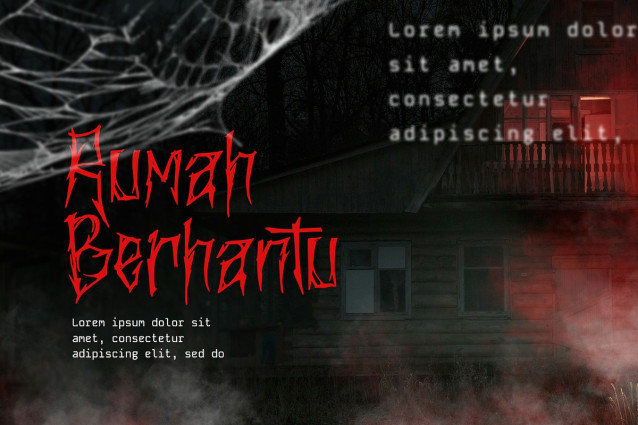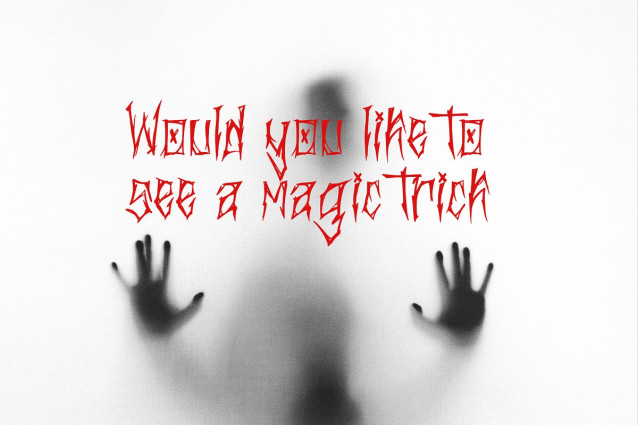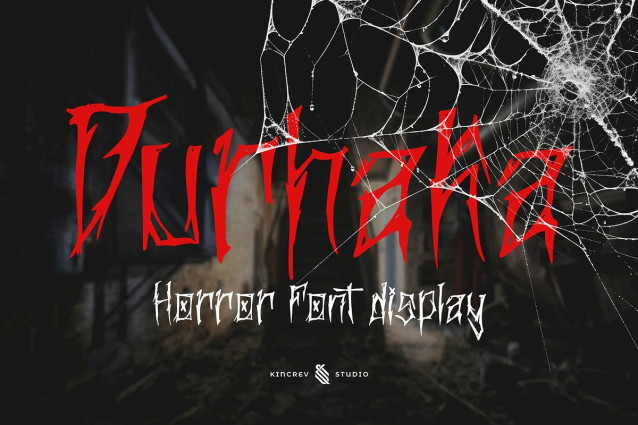
Durhaka Font
Durhaka Font, a display decorative font is font for you to get your designs with creepy, artsy, and modern look. It is made in uppercase & lowercase which are easy on the eyes and nice to look at, and easy to read. This font is designed to bring your brandings to life and add a touch of sporty modern, bold, fun and style.